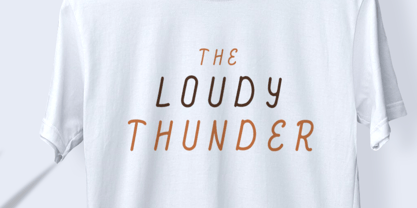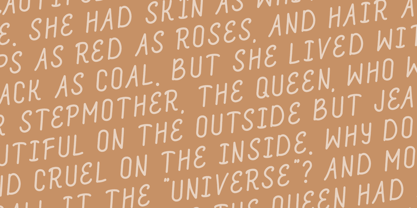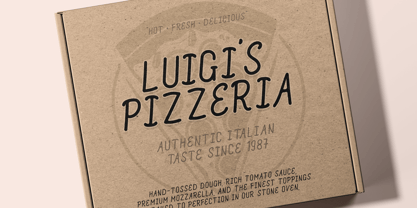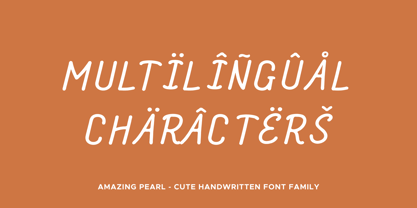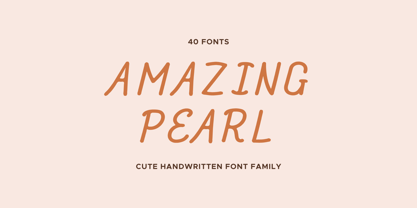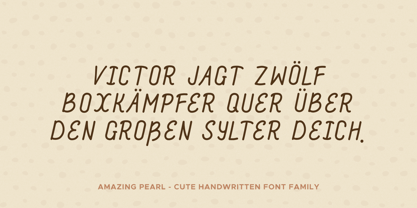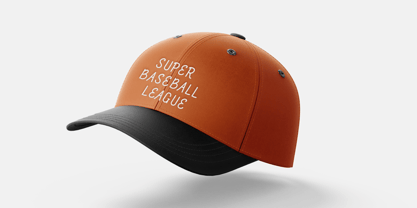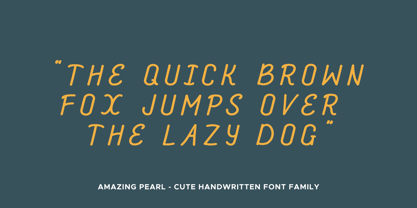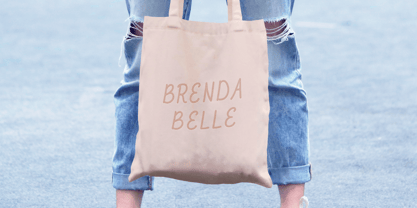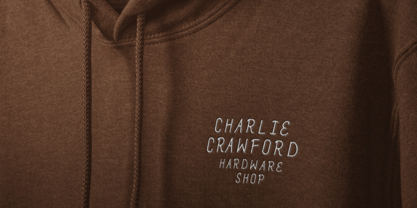
Amazing Pearl is a playful handwritten typeface designed to bring charm, warmth, and personality into your work. Created by Mariia CAKICI, this font blends a childish spirit with expressive brush textures, making it ideal for projects that need a friendly, approachable tone.
With its natural flow and slightly imperfect strokes, Amazing Pearl captures the feel of real handwriting while maintaining clarity and consistency. It works beautifully for children’s books, branding, packaging, social media graphics, posters, and creative DIY designs.
This family includes 40 carefully crafted styles, offering a wide range of expressive options—from clean Regular and Italic to textured variations like Brush, Ink, Rough, Rust, Scratch, Grit, and Worn. Each style is paired with matching Outline and Italic versions, giving you flexibility to layer, decorate, and experiment.
Supporting 114 languages across Latin scripts, Amazing Pearl ensures broad usability for global projects. With 316 glyphs, it provides all the essentials for versatile typography while maintaining its handcrafted charm.
Whether you're designing something fun, bold, or full of character, Amazing Pearl adds a unique, lively voice to your typography.
Amazing Pearl